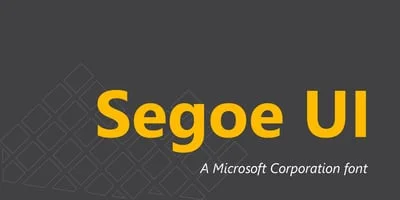
Segoe UI Font
Segoe UI Font is perfect for digital projects including Windows application interfaces, modern web design layouts, software user interface elements, digital dashboard designs, contemporary app development, online platform graphics, user experience prototypes, and accessible digital communications. This optimized typeface brings Microsoft's design philosophy and digital clarity to any design project.
What makes Segoe UI Font exciting is its exceptional optimization for digital screens and user interface applications with outstanding readability across all devices. The carefully engineered letterforms feature precise hinting and optimized spacing that ensure crystal-clear display on monitors, tablets, and smartphones while maintaining professional elegance. This font delivers the perfect balance of technical performance and visual appeal that modern digital experiences demand.
The Segoe UI Font family typically includes multiple weights from light to black with corresponding italic styles, complete Unicode character sets, numerals, punctuation, and comprehensive symbol libraries. The design incorporates advanced screen optimization and ClearType technology that enhance digital readability. Premium versions include extensive language support and specialized characters optimized for international software applications.
Whether you're designing for software companies, digital platforms, or user interface projects, Segoe UI Font delivers the proven digital excellence that powers millions of applications worldwide. Its screen-optimized character makes it ideal for user interfaces and digital communications that must perform flawlessly across all devices and resolutions. The font's Microsoft heritage ensures it communicates reliability and accessibility, making it perfect for any project requiring the trusted aesthetic of digital interface design and user experience excellence.